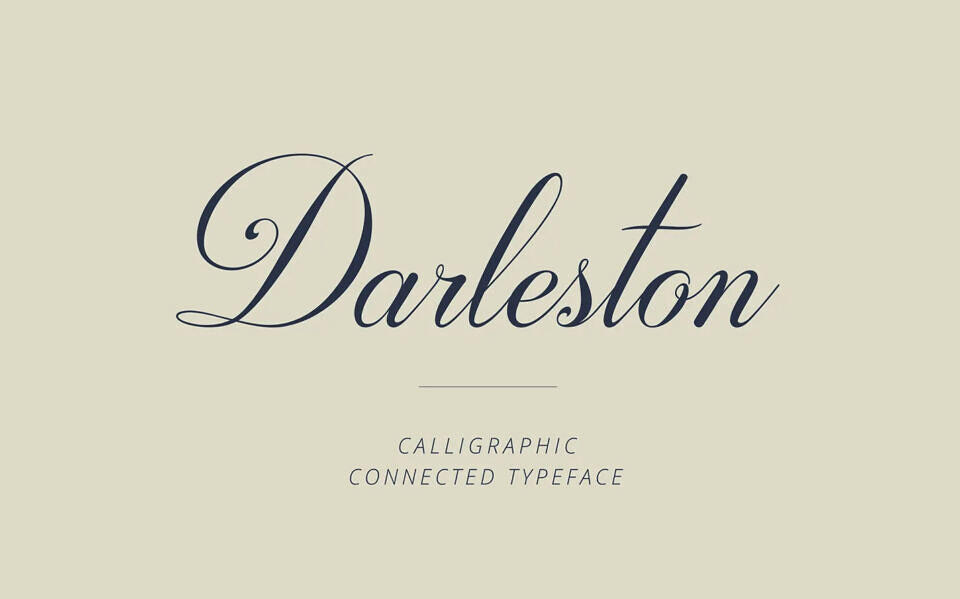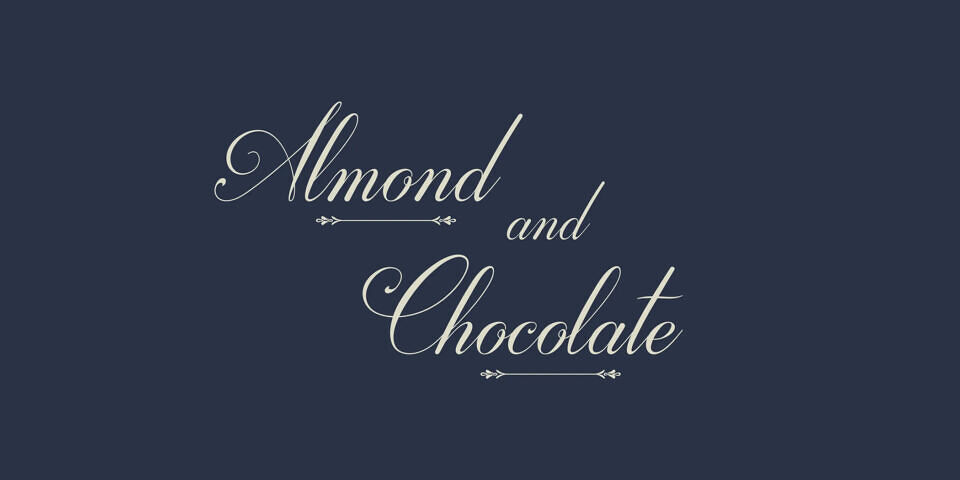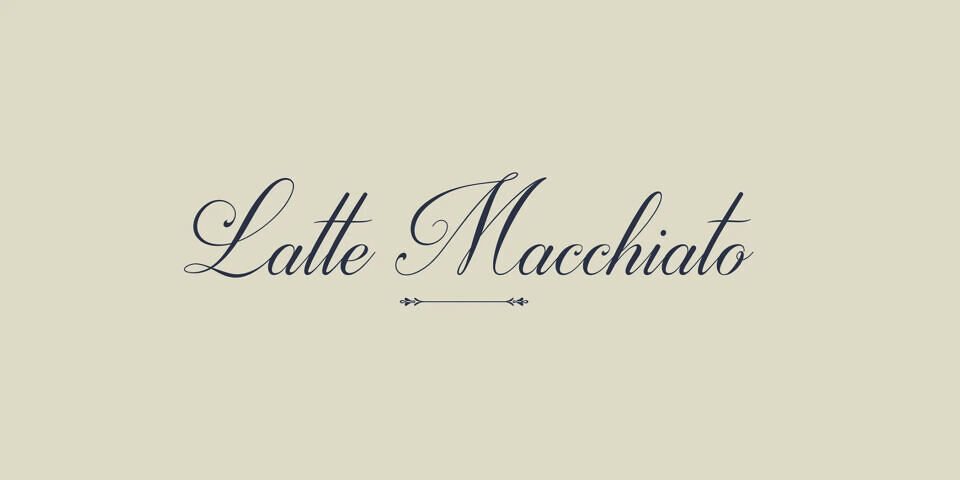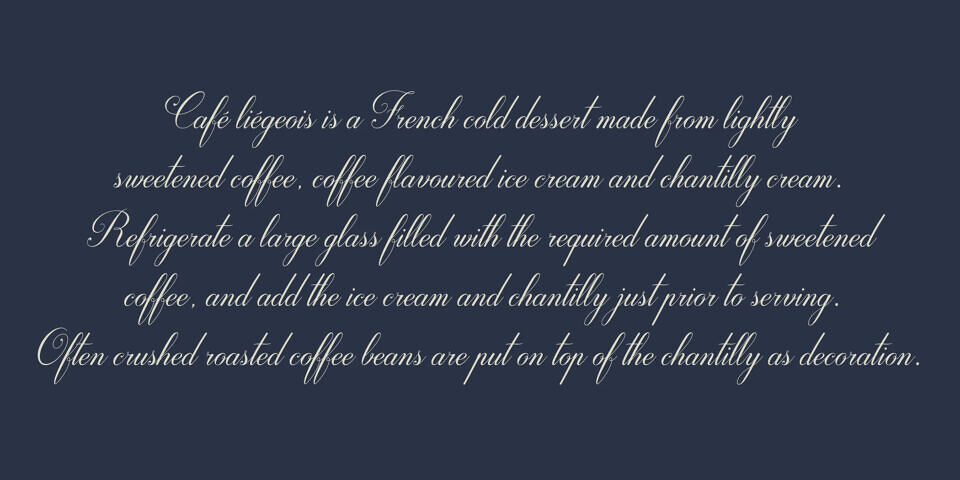
Darleston is an elegant calligraphy script font designed by Youssef Habchi, featuring flowing strokes, high contrast, and decorative swashes. Its ornate uppercase letters and graceful lowercase forms create a refined, luxurious feel. Ideal for wedding invitations, logos, and formal designs, it adds sophistication and artistic flair to any project.